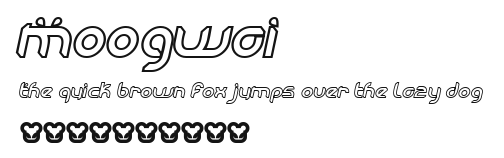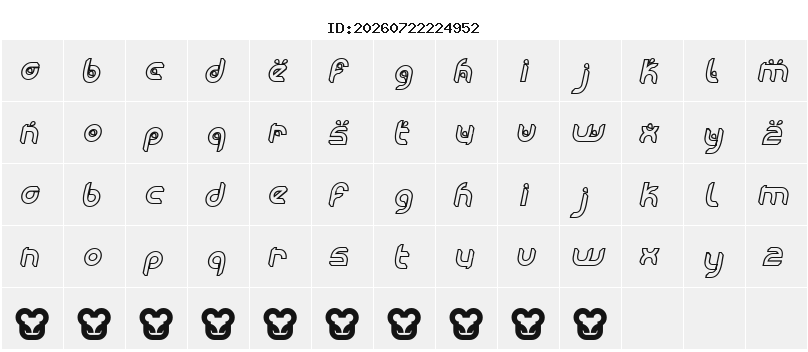
Moogwai Preview
• Font Name: Moogwai
• Font Style: ThinOblique
• Font ID: Macromedia Fontographer 4.1.5 Moogwai ThinOblique
• Full Font Name: Moogwai ThinOblique
• Version: Macromedia Fontographer 4.1.5 6/3/02
• PostScript Name: MoogwaiThinOblique
About Moogwai.ttf
Moogwai.ttf is a modern, elegant sans-serif font designed for ultimate readability and visual harmony. Perfect for branding, headlines, web design, and print materials.